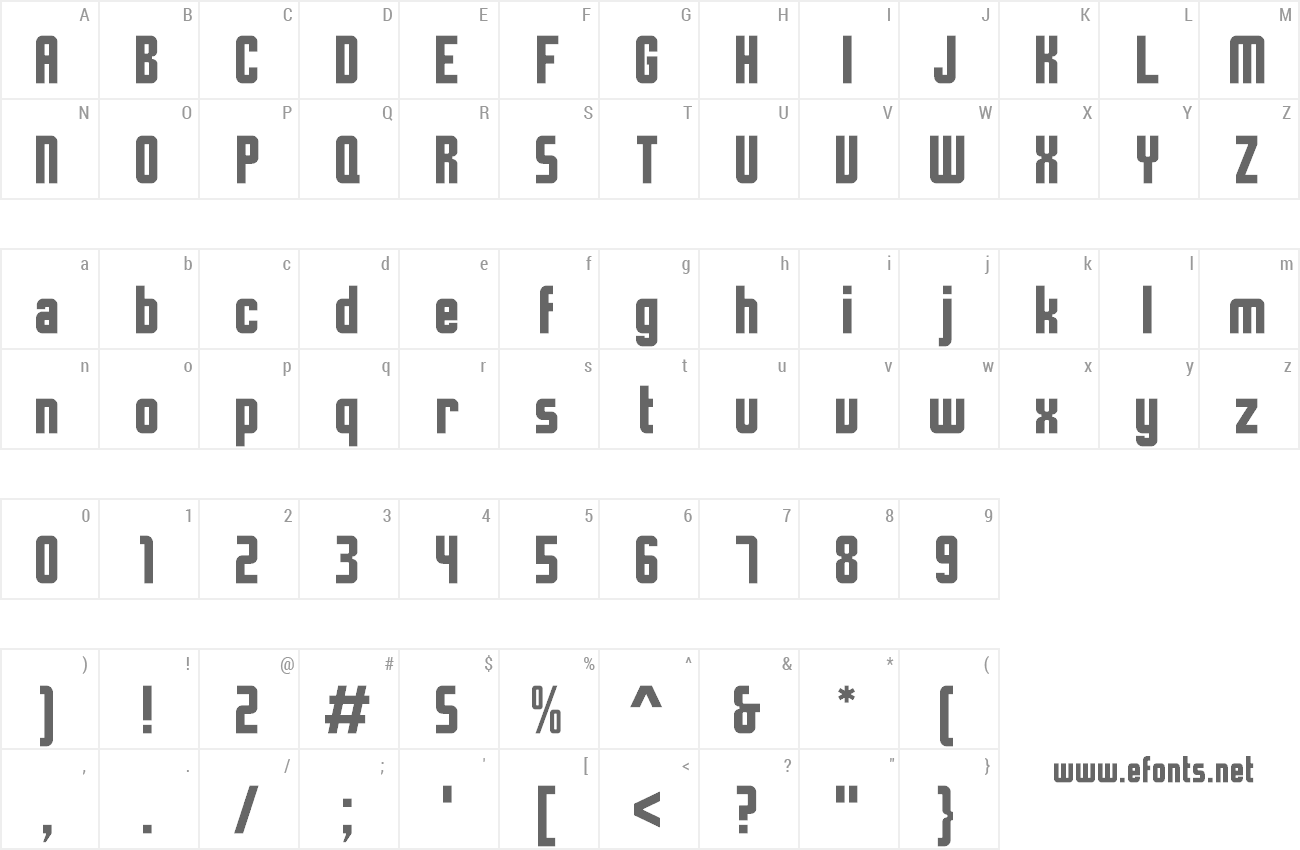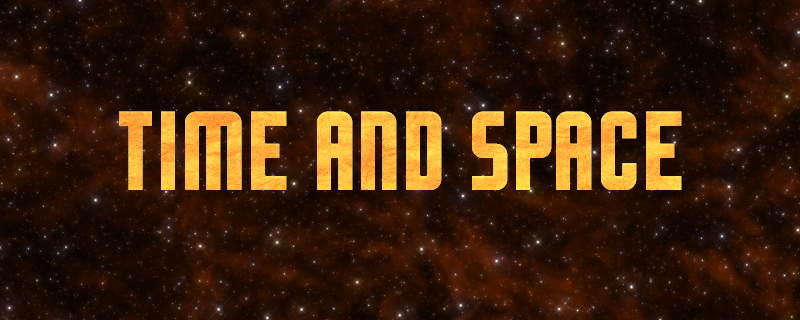
| Font name: | Time and Space |
| Author: | Heliagon |
| Note by Heliagon | |
A typeface inspired by the 2014 logo for the TV-show 'Doctor Who'. Includes lowercase letters and supports Latin-based European languages. |